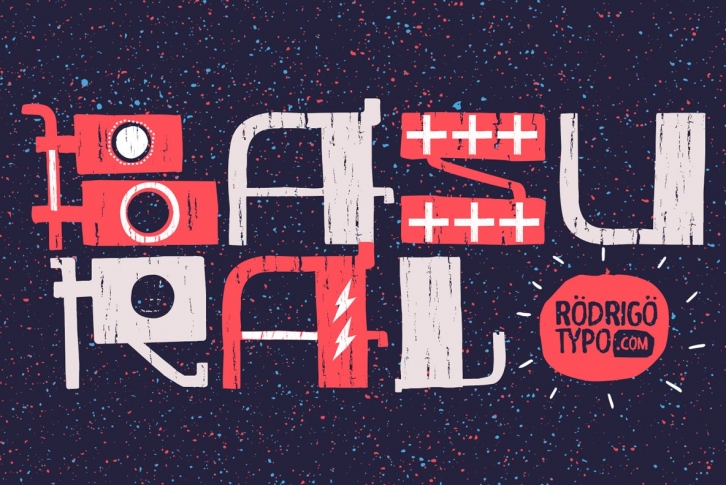
experimental typography, which seeks to play with different forms, inspired wood and metal making a junction, also contains a set of ornament, to support and do much more dynamic text contains Cyrillic set.